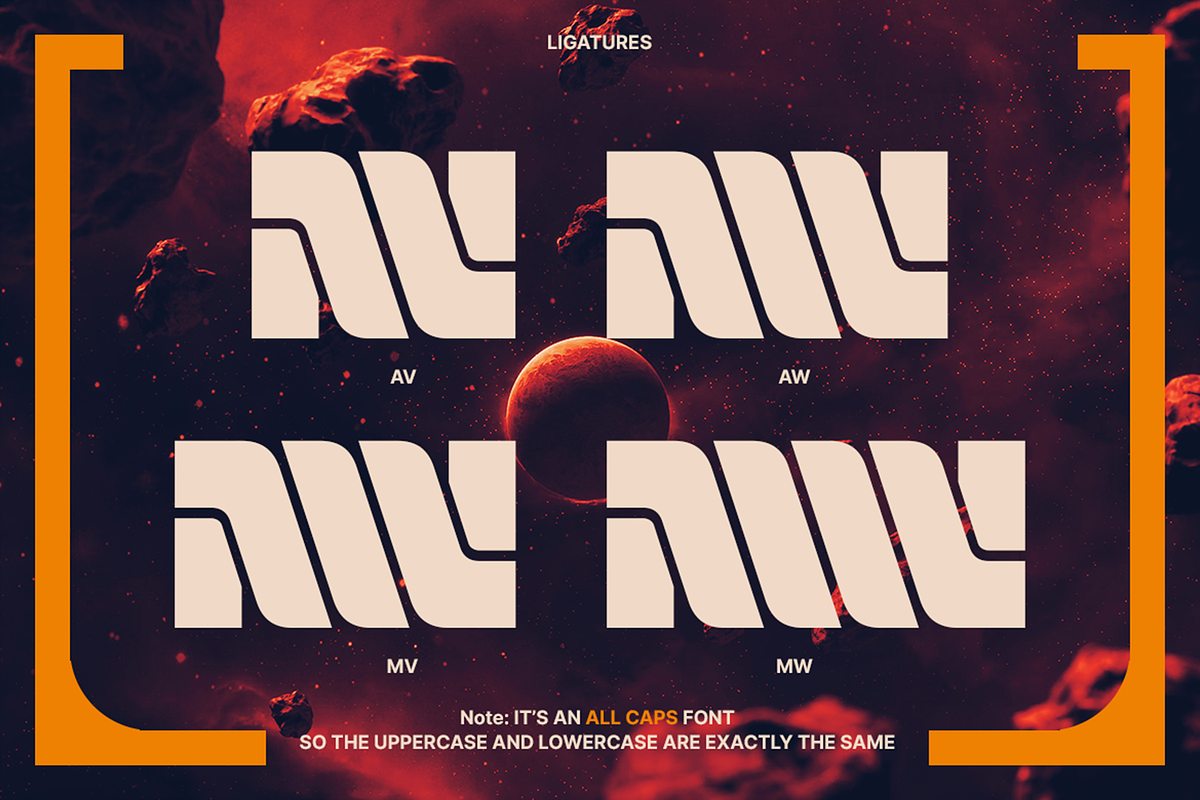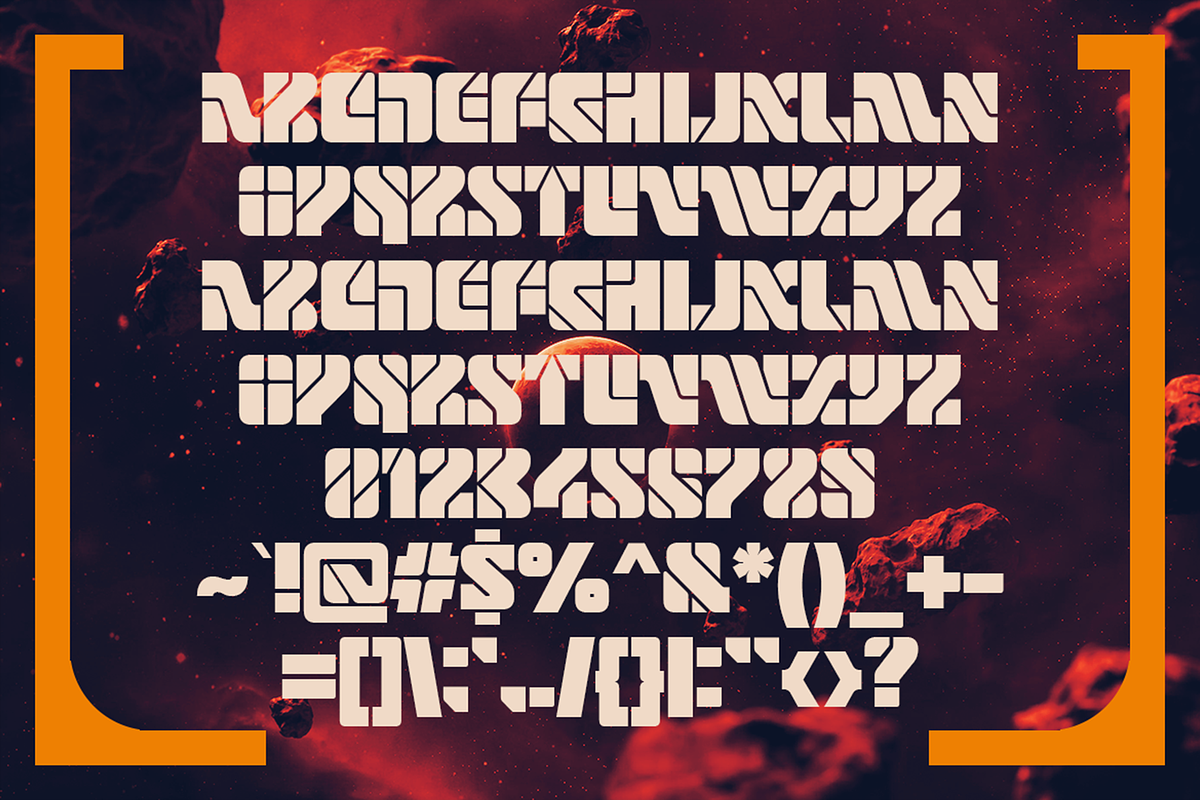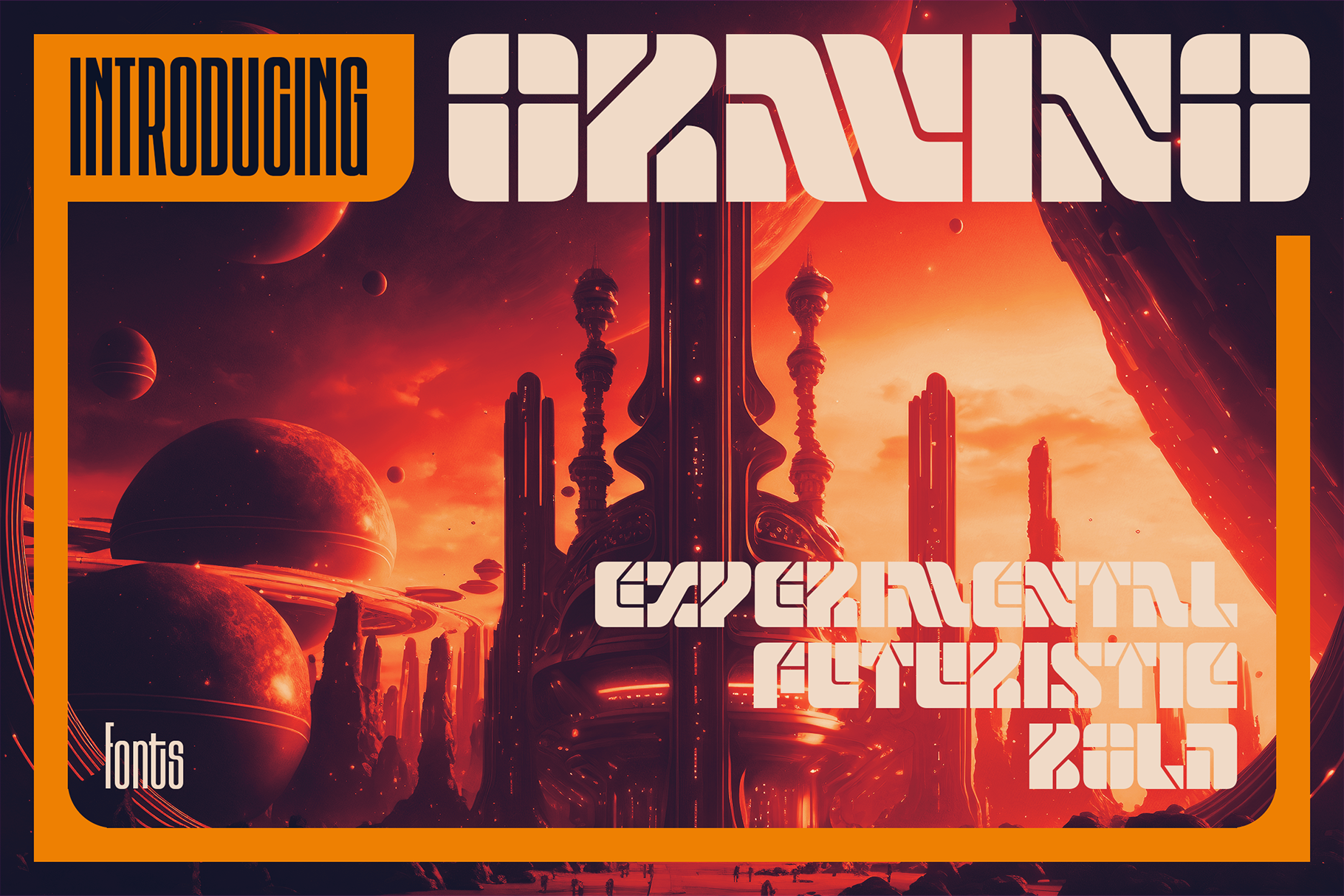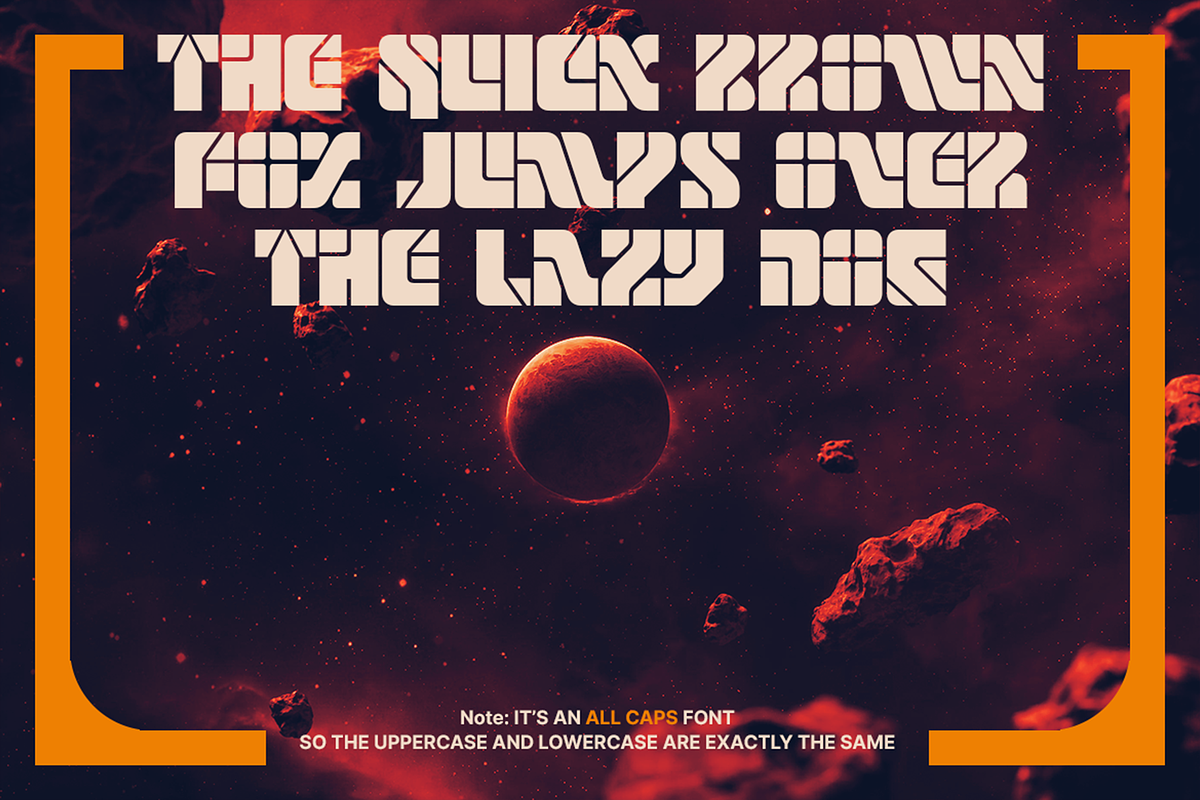
Oravino - Experimental Future Fonts
Discover Oravino – The Future of Typeface Design!
Step into tomorrow with Oravino, a bold and experimental font that pushes the boundaries of futuristic design. Inspired by the latest sci-fi trends, cutting-edge movies, and immersive game visuals, Oravino brings a high-tech, otherworldly vibe to your projects.
Featuring sleek lines, dynamic shapes, and a truly avant-garde style, Oravino is crafted for those who dare to be different.
- Sci-Fi-themed designs
- Futuristic movie titles
- Innovative game interfaces
- High-tech branding and visuals
- Posters and Album Artwork design
With its bold presence and experimental edge, Oravino transforms your design ideas into a futuristic statement. Embrace the sci-fi revolution and let your creativity soar!
Explore the future with Oravino – Boldly Shaping the Future of Design!